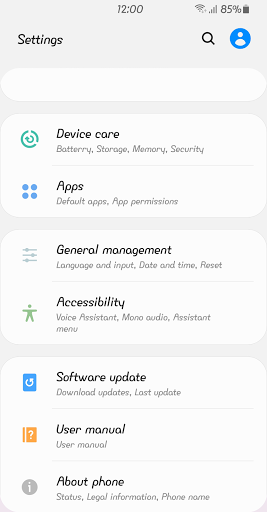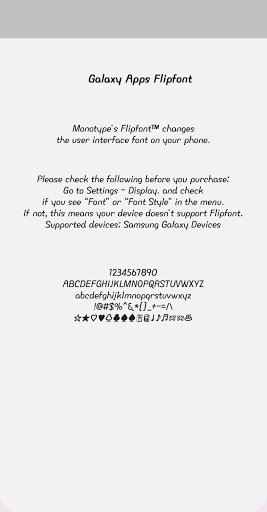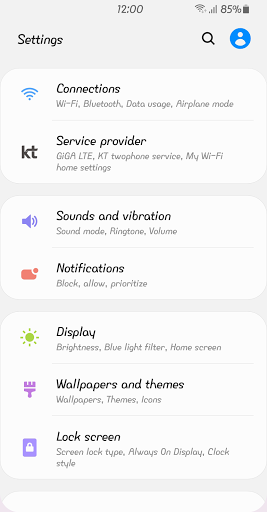
BST Surfing™ Latin Flipfont
BST Surfing
This typeface is a mixture of handwriting and Gothic styles, so it is firm and neat, but the slope of the body is cool and fun. Surfing needs to be left to the waves to live by acknowledging the flow, as if you enjoy true surfing.